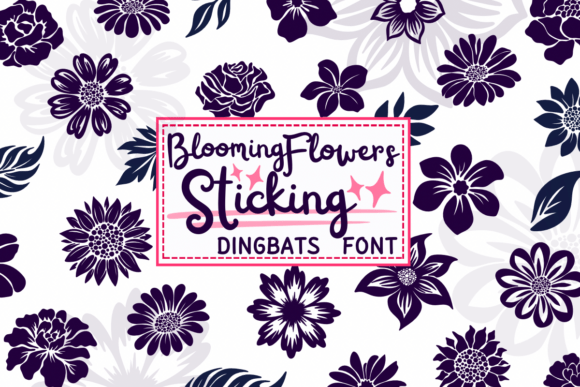
The Blooming Beauty of “Blooming Flowers Sticking” Font
So, what makes “Blooming Flowers Sticking” so special? Let’s dive into the good stuff and a few quirks I’ve discovered while working with this font.
- ✨ Unique and eye-catching botanical designs
- 💐 Perfect for a variety of creative projects, from invitations to crafts
- 🌼 Delicate and intricate details that add a touch of elegance
While “Blooming Flowers Sticking” is an amazing font, there are a few things to keep in mind:
- 🤔 Limited character set, which may not be suitable for lengthy text
- ⚠️ May not be the best choice for very small font sizes due to intricate details
The Story Behind “Blooming Flowers Sticking”
The story behind “Blooming Flowers Sticking” is one of passion and creativity. The designer, inspired by the beauty of nature, crafted this font to bring a touch of elegance and whimsy to creative projects. With a keen eye for detail, they carefully curated a collection of botanical designs that would delight designers and crafters alike.
| Font Name | Blooming Flowers Sticking Font |
| Is “Blooming Flowers Sticking” suitable for body text? | While “Blooming Flowers Sticking” is beautiful, it’s best suited for headings, titles, or short text due to its intricate details. |